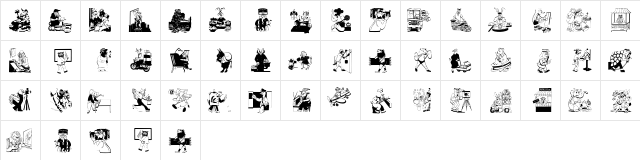
ReallyAnimalsTwo Regular
Design Context for ReallyAnimalsTwo Typeface
ReallyAnimalsTwo is a composed and adaptable typeface that performs quietly and consistently across a wide range of design contexts.